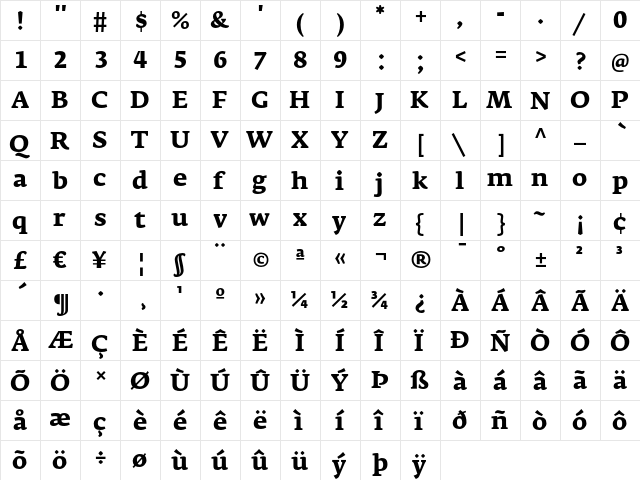
FedraSerifA BoldTF
FedraSerifA BoldTF Font Preview
FedraSerifA BoldTF
Design Context for FedraSerifA Typeface
FedraSerifA carries the refined structure of traditional serif typography, with bracketed terminals and considered proportions that communicate credibility and craft. The heavy weight commands attention and anchors typographic hierarchies.
Pro Tip: Use FedraSerifA for editorial body copy and considered headline work. Pair with a neutral sans for UI elements or captions to create a classic hierarchy.